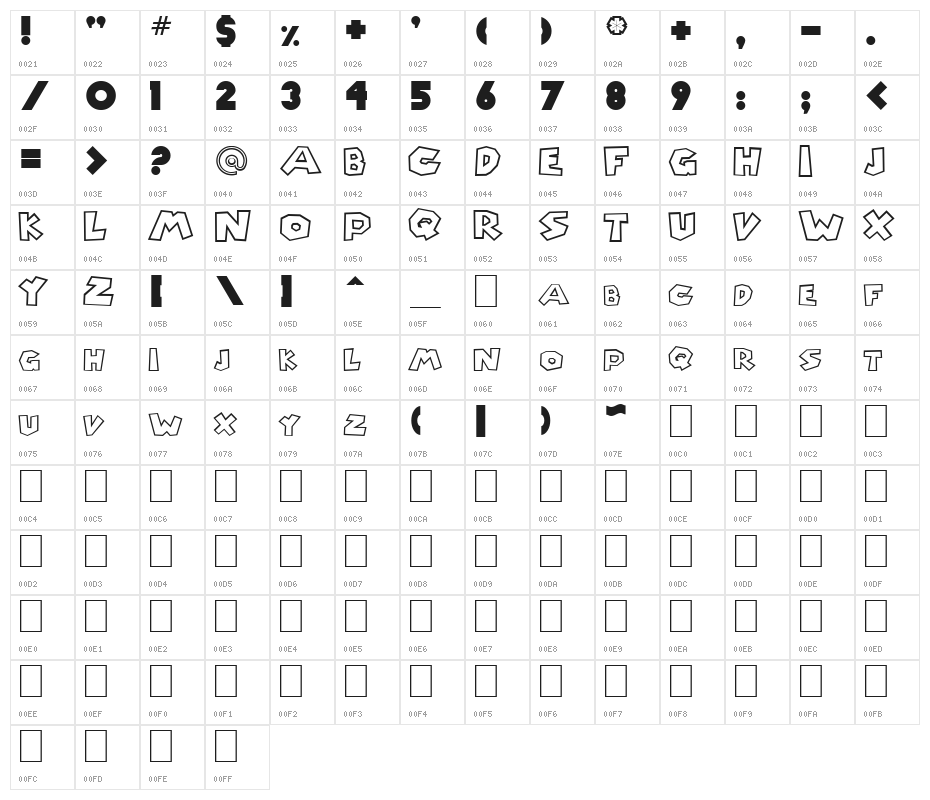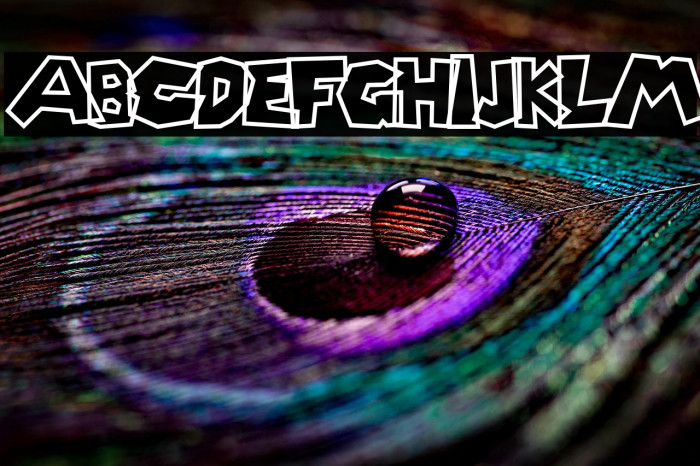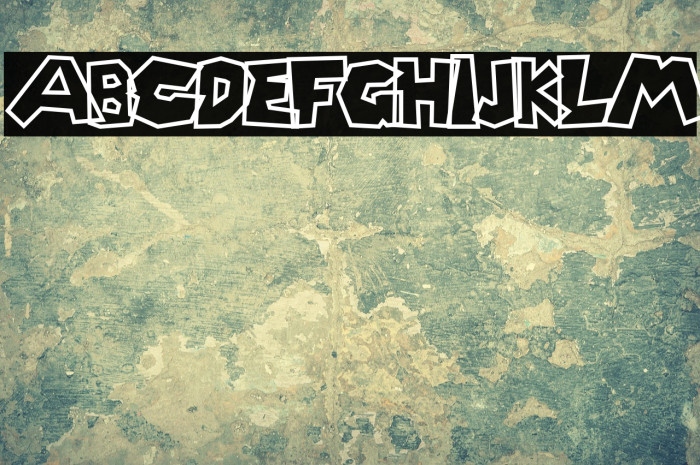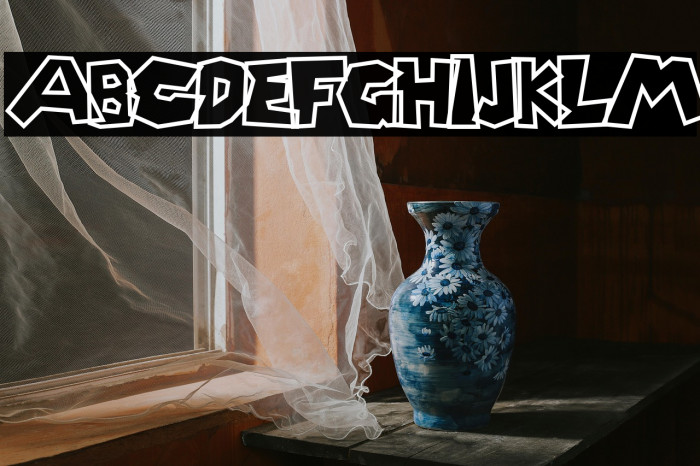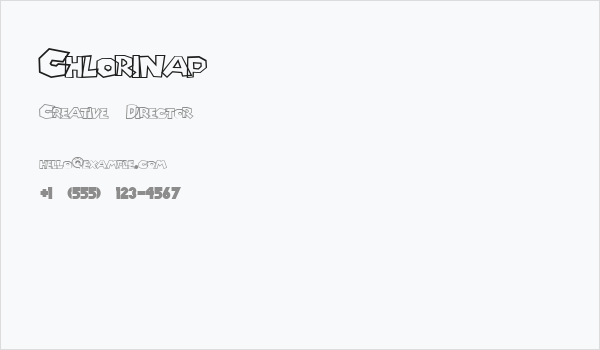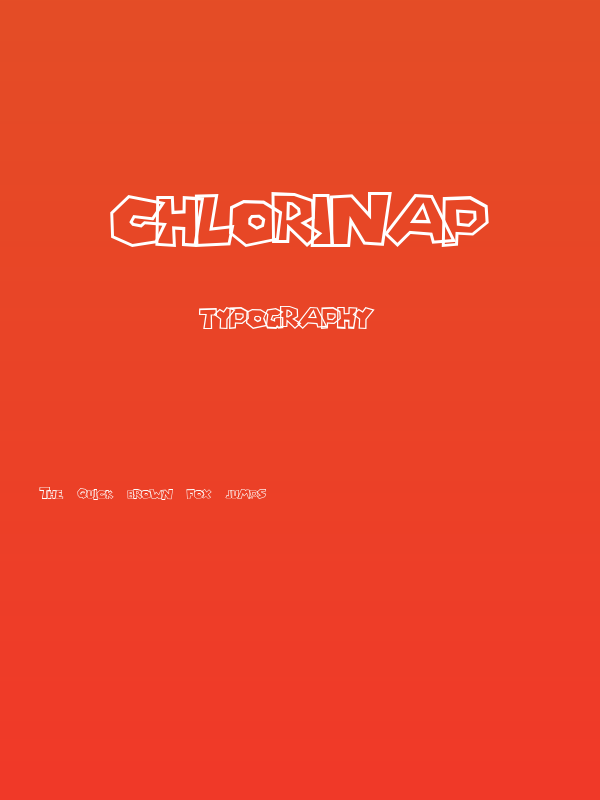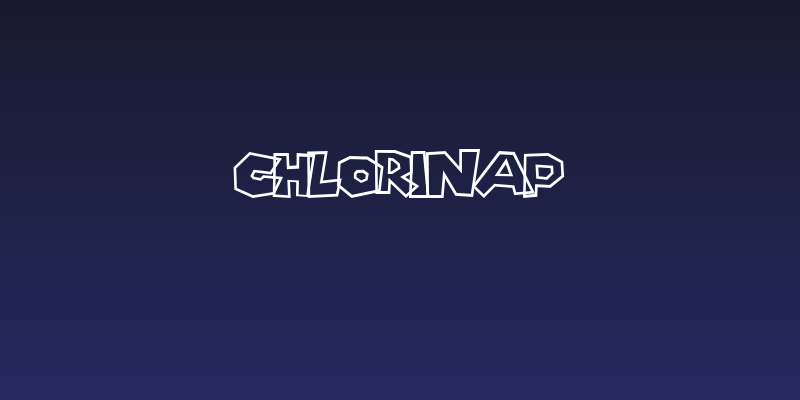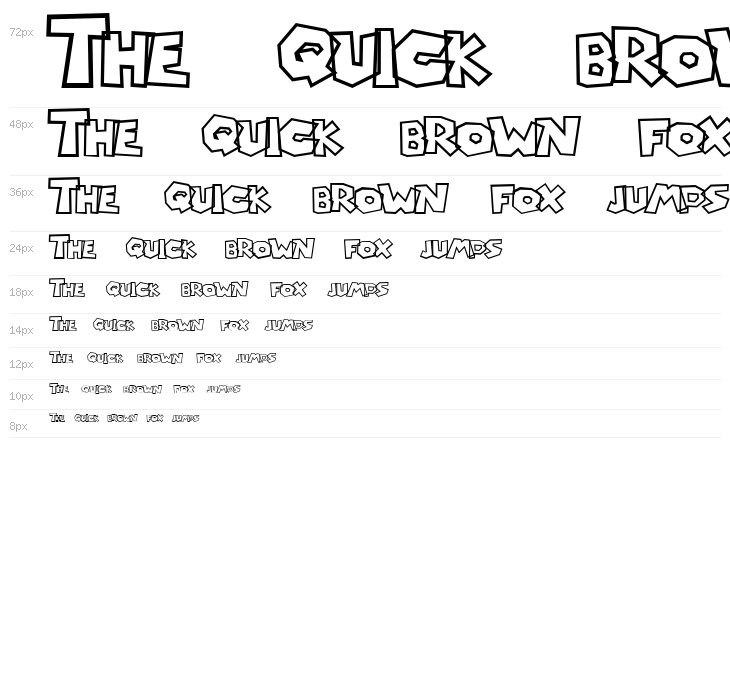
Chlorinap Font
Chlorinap Description
This font features a bold, angular design with a graffiti-like aesthetic. The uppercase letters are characterized by sharp edges and a blocky structure, giving them a dynamic and energetic appearance. The numbers are equally bold, with a strong presence that commands attention. Special characters maintain the same angular style, ensuring consistency throughout the typeface. The overall look is modern and edgy, suitable for projects that require a standout, unconventional style.
Overall StyleModern, Edgy
Use CaseHeadlines, Logos, Posters
Proposed ProjectsIdeal for street art designs, urban-themed posters, music album covers, and edgy branding projects.